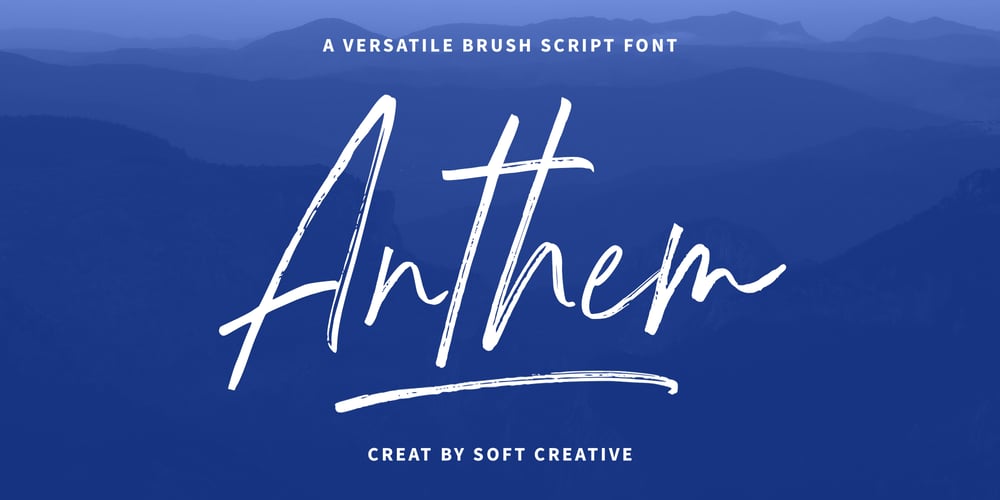
Anthem Brush
Anthem Brush font
Anthem Brush Font Family was designed by Muhajir Akarim and published by Soft Creative. Anthem Brush contains 2 styles and family package options. Anthem Brush is a new handwritten font whose every stroke is carefully crafted to maintain consistency while showcasing the unique characteristics of stunning hand-drawn art. The Anthem brush is also made with an irregular style and irregular letter thickness. So this typeface is ideal for branding, social media, invitations, and any design project that wants a personal, crafted feel. Anthem Brush also has several strokes that will beautify your design.